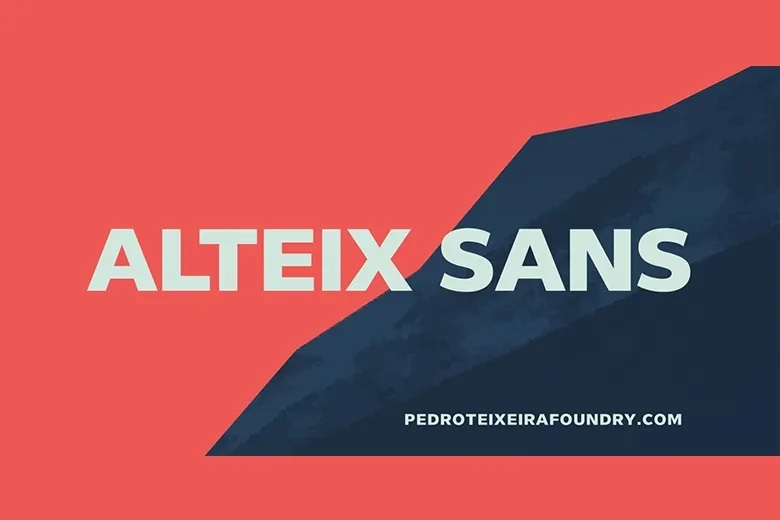
Alteix Sans Font
If you’re looking for a clean, modern font that feels both professional and creative, check out the Alteix sans-serif font family. It brings personality and polish to any project, from tech websites and corporate logos to sci-fi book covers.
Its smooth, balanced style is also a good fit for business cards, posters, UI design, and coding interfaces. A friendly yet premium look makes it a great choice for startups, creatives, and businesses.
This typeface is ideal for modern, high-impact design, whether you’re working on branding, headlines, or digital products.
Alteix Sans Serif Font